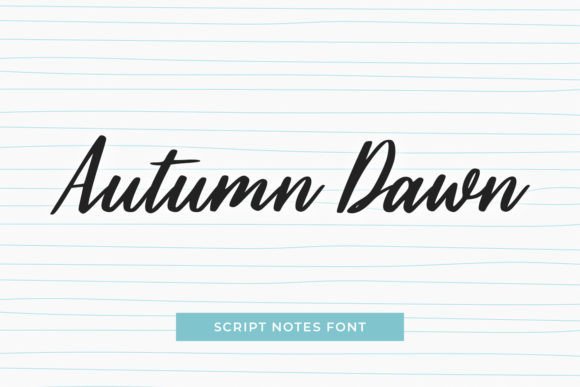
Unleash Your Creativity with Autumn Dawn Font
Have you ever sat at your desk, staring at a blank page, waiting for inspiration to strike? The blank canvas can be intimidating, but what if you had the perfect tool to spark your creativity? For designers, finding the right font can be the difference between a good design and a great one. That’s where the Autumn Dawn Font comes in – a sweet and friendly handwritten font that’s perfect for bringing your designs to life.
With its natural and unique style, the Autumn Dawn Font is incredibly versatile and can be used for a wide range of designs, from invitations and greeting cards to blog posts and social media graphics. Its friendly feel makes it perfect for conveying a sense of approachability and warmth, making it a valuable addition to any designer’s toolkit.
- Unique Characteristics: The font features a unique blend of traditional and modern elements, with subtle texture and organic feel that evokes the essence of autumn mornings.
Autumn Dawn Font Review
As a designer, I’ve had the chance to work with a lot of different fonts, but Autumn Dawn caught my eye with its unique blend of rustic charm and elegance. Here’s my honest review:
- Unique Character Set: Autumn Dawn has a distinct set of characters that are perfect for creating a warm and inviting atmosphere. From the curly letters to the intricate flourishes, every element feels meticulously crafted.
- Excellent Legibility: Despite its ornate design, Autumn Dawn is surprisingly easy to read, making it a great choice for body text or headlines.
- High-Quality Kerning: The font’s kerning is top-notch, ensuring that each letter and letter combination looks perfectly balanced and polished.
- Limited Font Weight Options: Autumn Dawn only comes in a few font weights, which might limit its versatility for certain design projects.
- Some Characters May Require Tweaking: While the font is generally well-designed, some characters may require slight adjustments to achieve the perfect look.
Overall, Autumn Dawn is a beautiful font that’s perfect for projects that require a touch of elegance and sophistication. While it has some limitations, its unique character set and excellent legibility make it a worthwhile addition to any designer’s toolkit.
The Autumn Dawn font is ideal for creating warm and inviting designs, making it perfect for:
– Fall-themed designs and invitations
– Outdoor and nature-inspired designs
– Creative and artistic projects
– Titles and headings for designs that require a touch of elegance and sophistication
Alternatives to Autumn Dawn Font
The Autumn Dawn Font is a beautiful script font, but it may not be the best choice for every project. Here are some alternatives that designers can consider:
Great Vibes is a modern script font that is perfect for creating a relaxed and casual atmosphere. It is ideal for use in titles, headings, and body text in projects that require a friendly and approachable tone. Compared to Autumn Dawn Font, Great Vibes has a more modern feel and is better suited for digital projects.
Pacifico is a beautiful script font that is inspired by the Pacific coast of Mexico. It is ideal for use in projects that require a sense of relaxation and calmness. Compared to Autumn Dawn Font, Pacifico has a more elegant feel and is better suited for use in titles and headings.